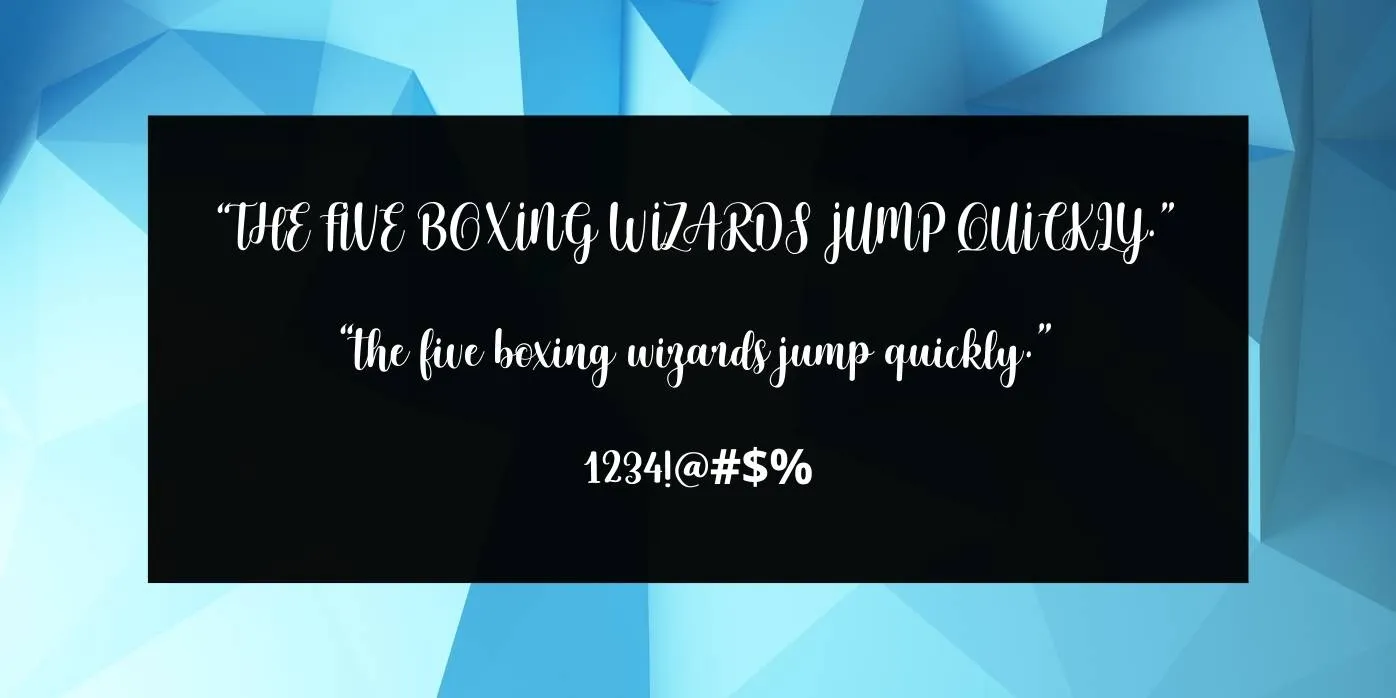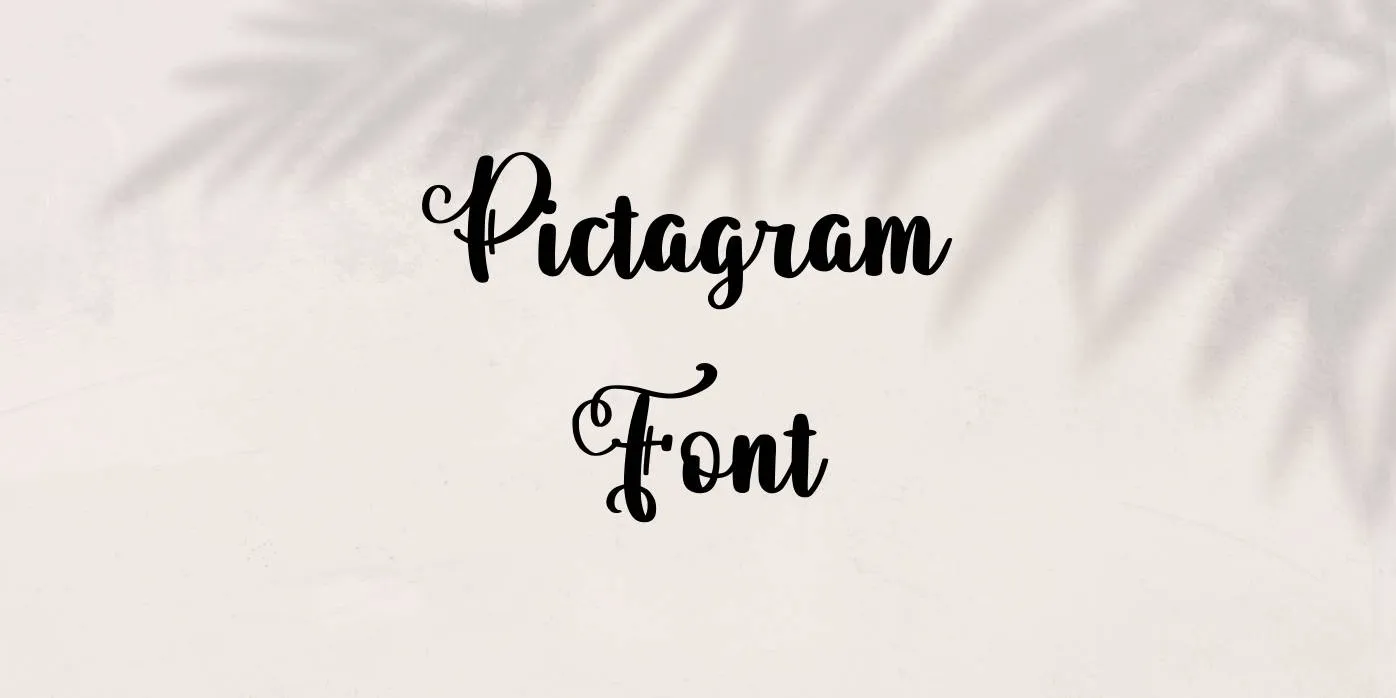
Pictagram Font
We introduced another stylish and well-looking typeface. Pictogram font is a Script type font that is designed and published by Abo Daniel, on 23 February 2020. And that typeface is added to the category of script, Children, and kids type. That font is available in only 1 style.
That typeface has a Total Download is 39472. And they support 67 international languages. It’s the amazing typeface they touch to the design like calligraphy and look like handwriting. That typeface is a stylish display, a Child font that makes your child theme design more amazing.
Eye-catchy characters, It‚Äôs a perfect choice for Kids’ type designing, Monograms, or logos. That typeface also offered uppercase and lowercase letters, Numbers, and different signs you can be used in your Design. You can easily compare this font with the hoodson script font. Usage¬† That is an amazing and stylish typeface you can use whenever you want like for banner ads, Book covers, especially stickers, Product packaging, Signatures Baby bags, etc.
On the other side, You also used it for some special events like birthday parties, Wedding invitations, etc. This font’s popularity increasing in just a few days because of its uniqueness and have many features, such as that typeface is easy to understand and Stylish look. This typeface is very similar to the style script font. If you find any typeface for designing that is inspiring with new and old features, you find it?
What fonts are similar to Pictagram Font? There are many that are similar to that type of script font but looking at the design so they are closest to that such as Pathita script font, Peque script font, and Pinguid font.